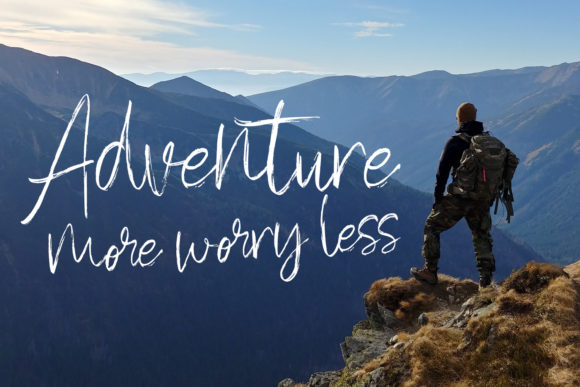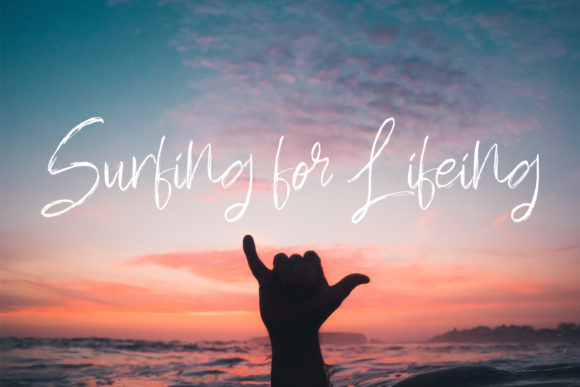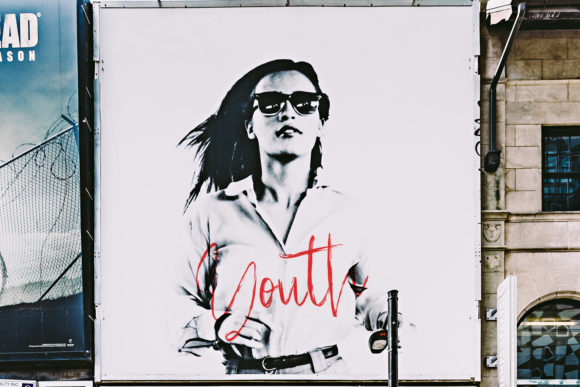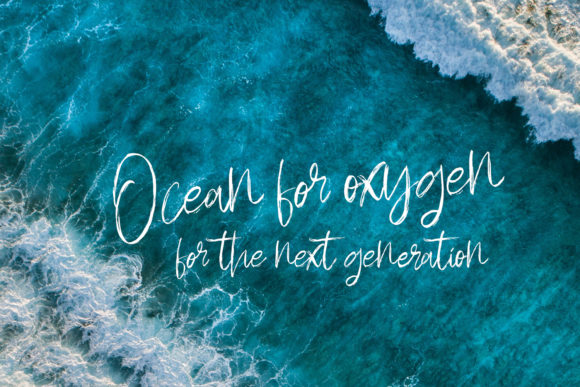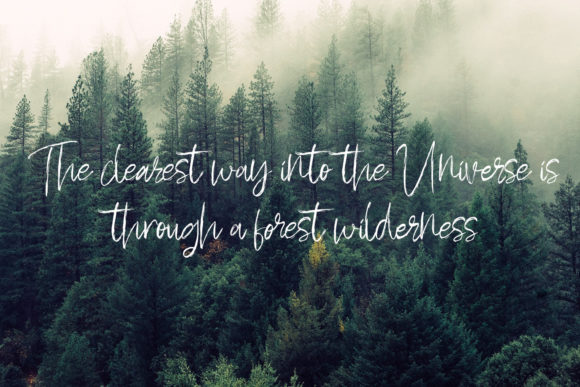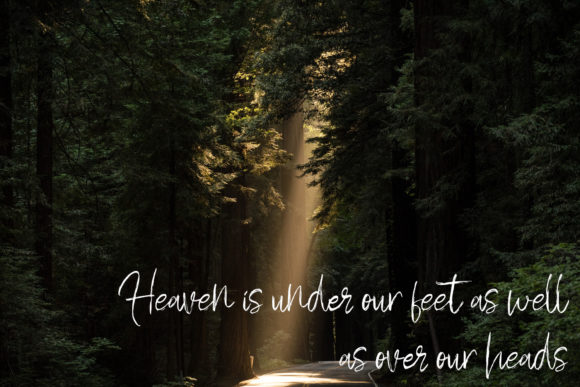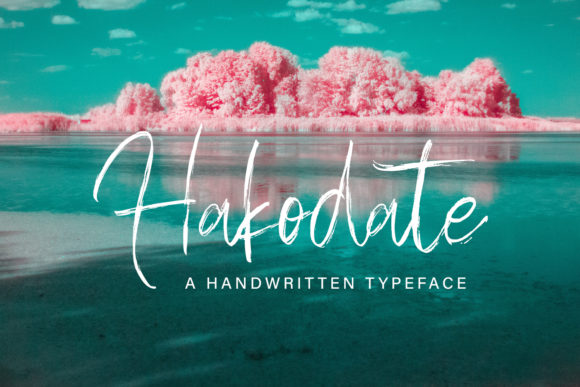
Hakodate Font: Elevate Your Designs with a Touch of Elegance
Are you on the lookout for a font that can add a dash of sophistication and whimsy to your designs? Look no further than the Hakodate font, a stunning handwritten font that is sure to capture your heart with its light and simple charm.
What Makes Hakodate Font So Special?
Hakodate is more than just a font – it’s an experience. With its unique style and effortless elegance, this beautiful handwritten font is perfect for designers and crafters who want to turn their design ideas into true standouts. Whether you’re working on a branding project, a wedding invitation, or a social media graphic, Hakodate font is sure to make your designs shine.
The Characteristics of Hakodate Font
So, what sets Hakodate font apart from other fonts out there? Here are just a few of its key characteristics:
- Handwritten with love: Hakodate font is a carefully crafted handwritten font that exudes warmth and personality.
- Light and simple: With its delicate lines and minimalist charm, Hakodate font is perfect for designs that require a touch of subtlety.
- Unique style: Hakodate font has a one-of-a-kind style that is sure to make your designs stand out from the crowd.
- Versatile: Whether you’re working on a digital project or a print design, Hakodate font is versatile enough to adapt to any format.
How to Use Hakodate Font in Your Designs
Now that you’re falling in love with Hakodate font, let’s talk about how to use it in your designs. Here are a few ideas to get you started:
- Branding projects: Use Hakodate font to add a touch of elegance to your brand’s logo, business cards, or website.
- Wedding invitations: Make your wedding invitations truly special with Hakodate font, perfect for formal or casual wedding designs.
- Social media graphics: Add a dash of personality to your social media graphics with Hakodate font, perfect for Instagram, Facebook, or Twitter.
- Digital and print designs: From brochures to e-books, Hakodate font is versatile enough to use in a wide range of digital and print designs.
Why Designers and Crafters Love Hakodate Font
So, why are designers and crafters raving about Hakodate font? Here are just a few reasons:
- Easy to read: Hakodate font is carefully crafted to be easy to read, even at small sizes.
- Highly legible: With its clear and simple lines, Hakodate font is perfect for designs that require a high level of legibility.
- Unique and creative: Hakodate font allows designers and crafters to add a touch of personality to their designs, making them truly unique and creative.
In conclusion, Hakodate font is a stunning handwritten font that is sure to capture your heart with its light and simple charm. With its unique style, versatility, and elegance, Hakodate font is perfect for designers and crafters who want to turn their design ideas into true standouts. Whether you’re working on a branding project, a wedding invitation, or a social media graphic, Hakodate font is sure to make your designs shine.
Get Ready to Fall in Love with Hakodate Font
So, what are you waiting for? Fall in love with Hakodate font and discover a world of design possibilities. With its effortless elegance and unique style, Hakodate font is sure to become your go-to font for all your design needs.